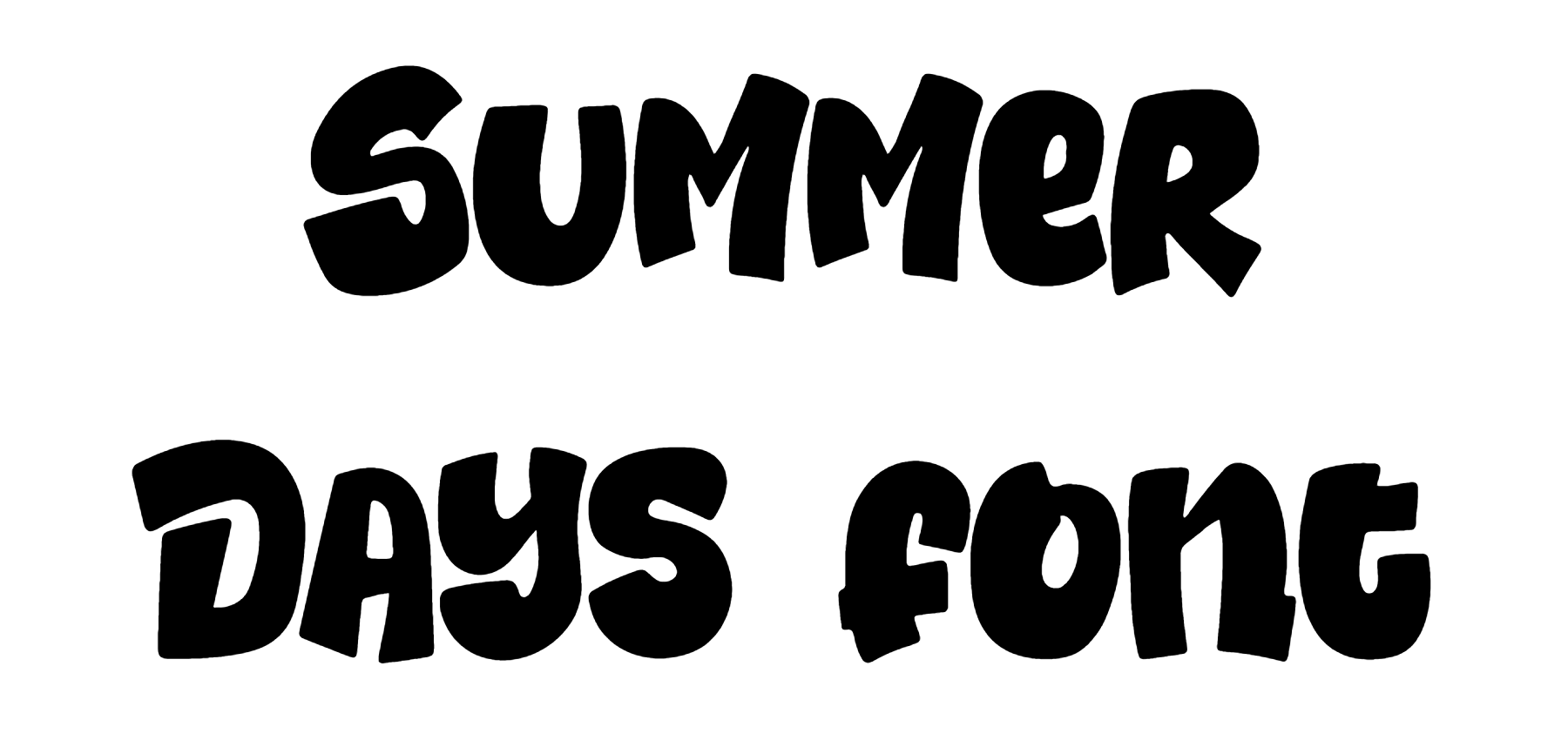
Summer Days
Summer Days is a cartoon font made by Dimas Prasetyo (2022). Its bouncy, rounded letters feel playful, like lettering from a cartoon or a comic book. It's a free download, and you can try it with your own text in the preview above first.
In the notes inside the font file, Dimas Prasetyo describes it like this: “This font was created By DM Studio ( Dimas & Yuniar ) From Bandung – Indonesia .”
What You Can Type With Summer Days
Summer Days covers the full alphabet in upper and lowercase, plus all ten numbers, so you can set names, dates and prices without switching fonts. Common punctuation such as &, !, ? and @ is included as well. It also has the accented letters you need for Spanish, French, German, Portuguese and Italian.
Where Summer Days Works Best
Think of Summer Days for kids' books, birthday invites and fun YouTube thumbnails. Its lowercase letters are tall compared to the capitals, which keeps it readable at smaller sizes. Cartoon fonts are great for short, fun lines. If you place it over a busy photo, add a thick outline or a drop shadow so it stays readable.
Does Summer Days support accented letters?
Yes. Summer Days includes the accented letters needed for Spanish, French, German, Portuguese and Italian, so it works for more than just English.